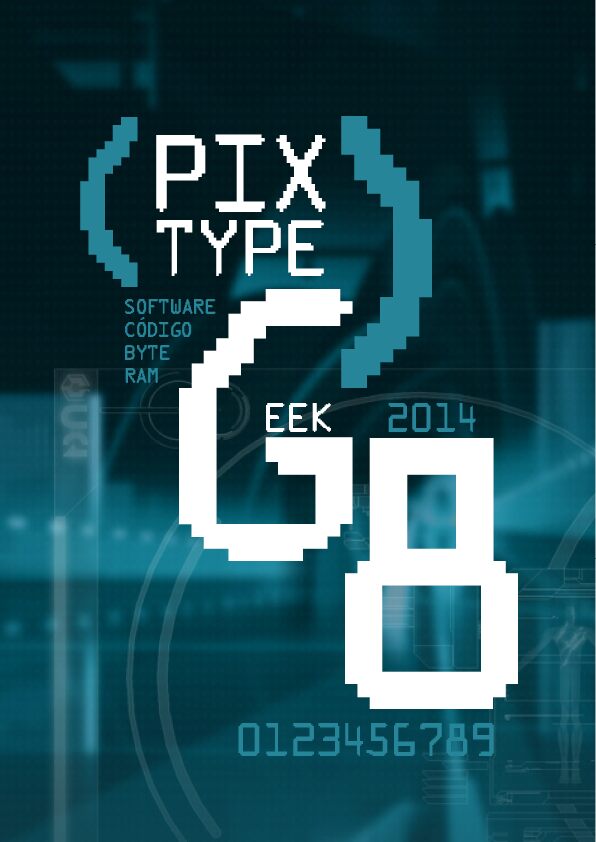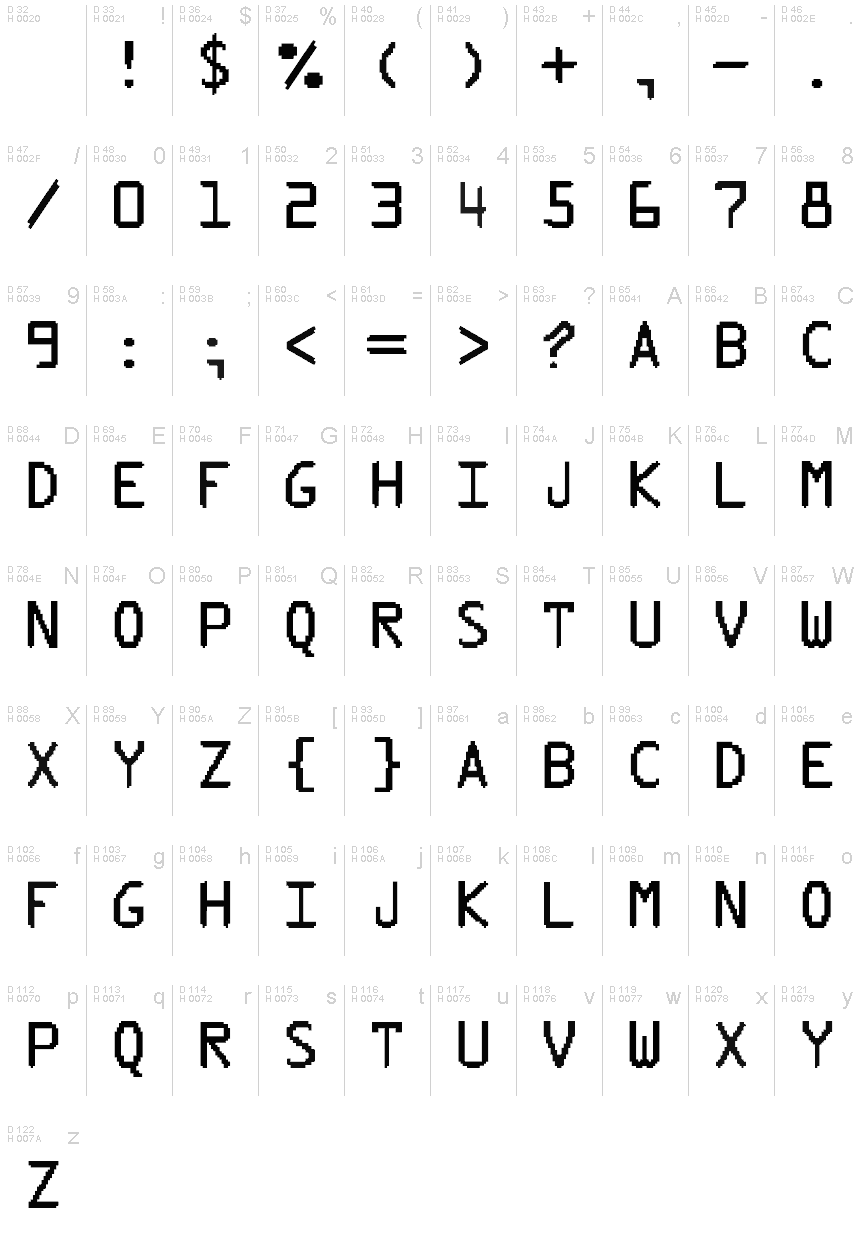
PixType
Pix Type is a striking digital font that commands attention with its bold, pixelated letters. Designed by pixtype, this display font exudes a retro-futuristic charm, blending nostalgic video game aesthetics with a modern, tech-driven sensibility. Its angular, geometric forms create a distinct visual impact, lending themselves well to bold headlines, eye-catching logos, and immersive digital interfaces.
Pix Type's versatility allows it to seamlessly transition between bold branding, dynamic motion graphics, and retro-inspired design projects, making it a versatile choice for designers seeking to add a touch of digital flair to their work.
Pix Type is a display font in all-caps inspired by Geek culture. It has been constructed based on the bitmap structure.
Pix Type's versatility allows it to seamlessly transition between bold branding, dynamic motion graphics, and retro-inspired design projects, making it a versatile choice for designers seeking to add a touch of digital flair to their work.
Pix Type is a display font in all-caps inspired by Geek culture. It has been constructed based on the bitmap structure.